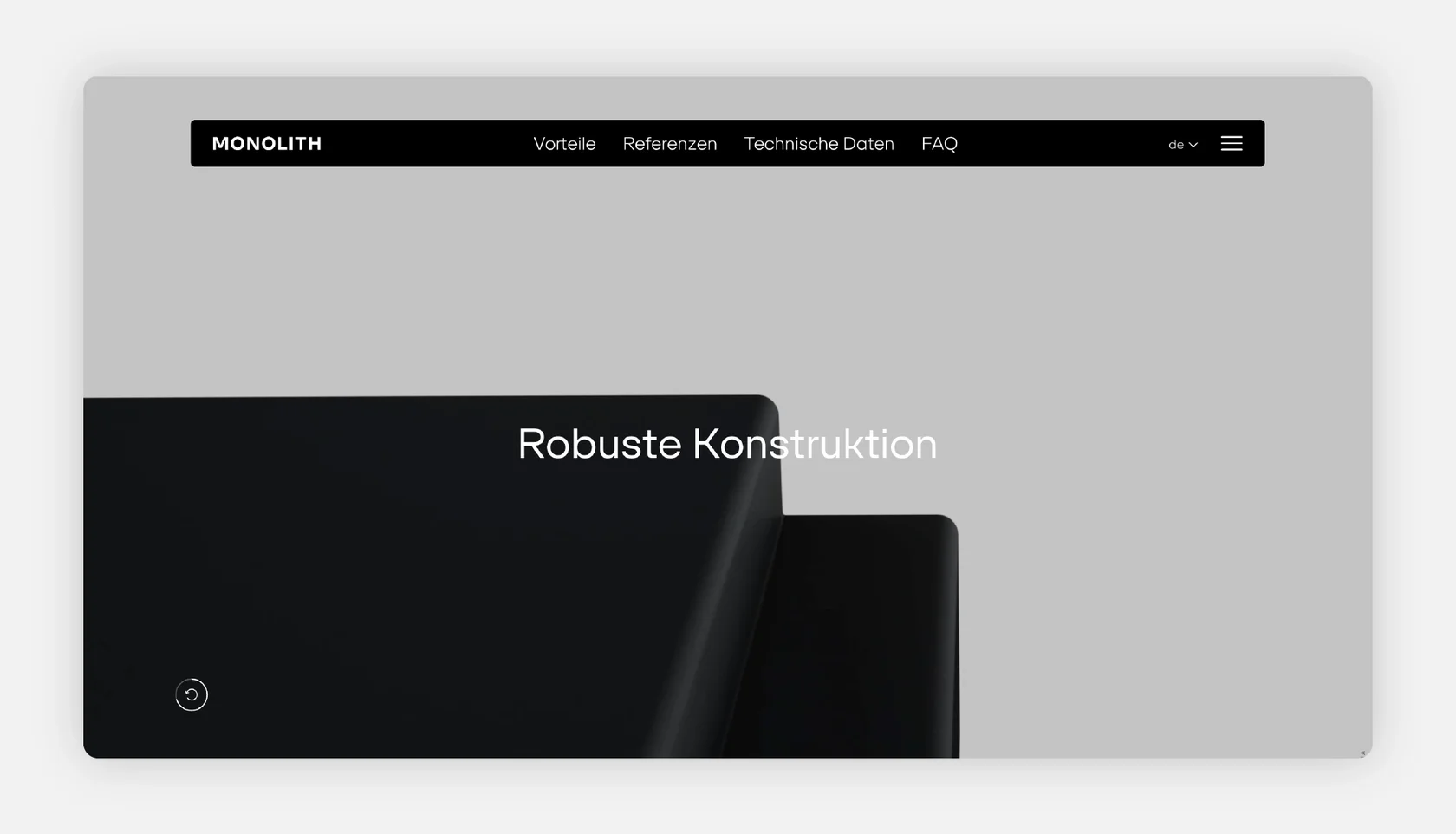
Monolith — Ultra-thin outdoor LCD totem
Font: SFT Schrifted Sans (Regular).
Use case: Website headings, body text, navigation.
Designed by: Moremedia
About the Project:
Monolith Outdoor Totem is all about clarity, precision, and timeless aesthetics – just like SFT Schrifted Sans. With its understated design and focus on essentials, the Totem presents information effectively without distraction. The typeface reinforces this approach, ensuring seamless readability and modern sophistication.
Why SFT Schrifted Sans?
Much like the pure, minimal design of the Monolith Totem, SFT Schrifted Sans balances modernity and precision. Its clean lines and open forms enhance readability, while its structured elegance aligns with Monolith’s focus on seamless, high-impact digital communication.